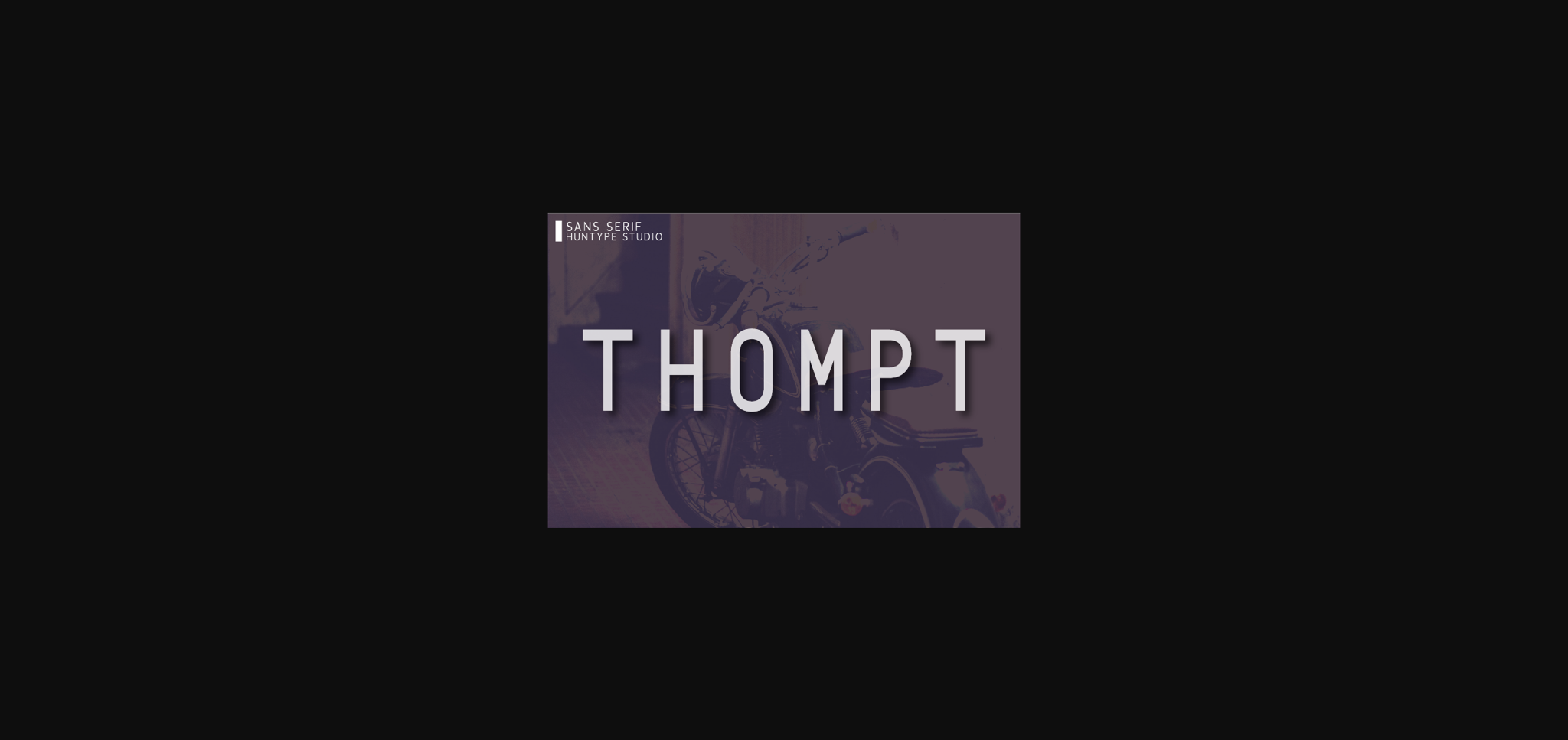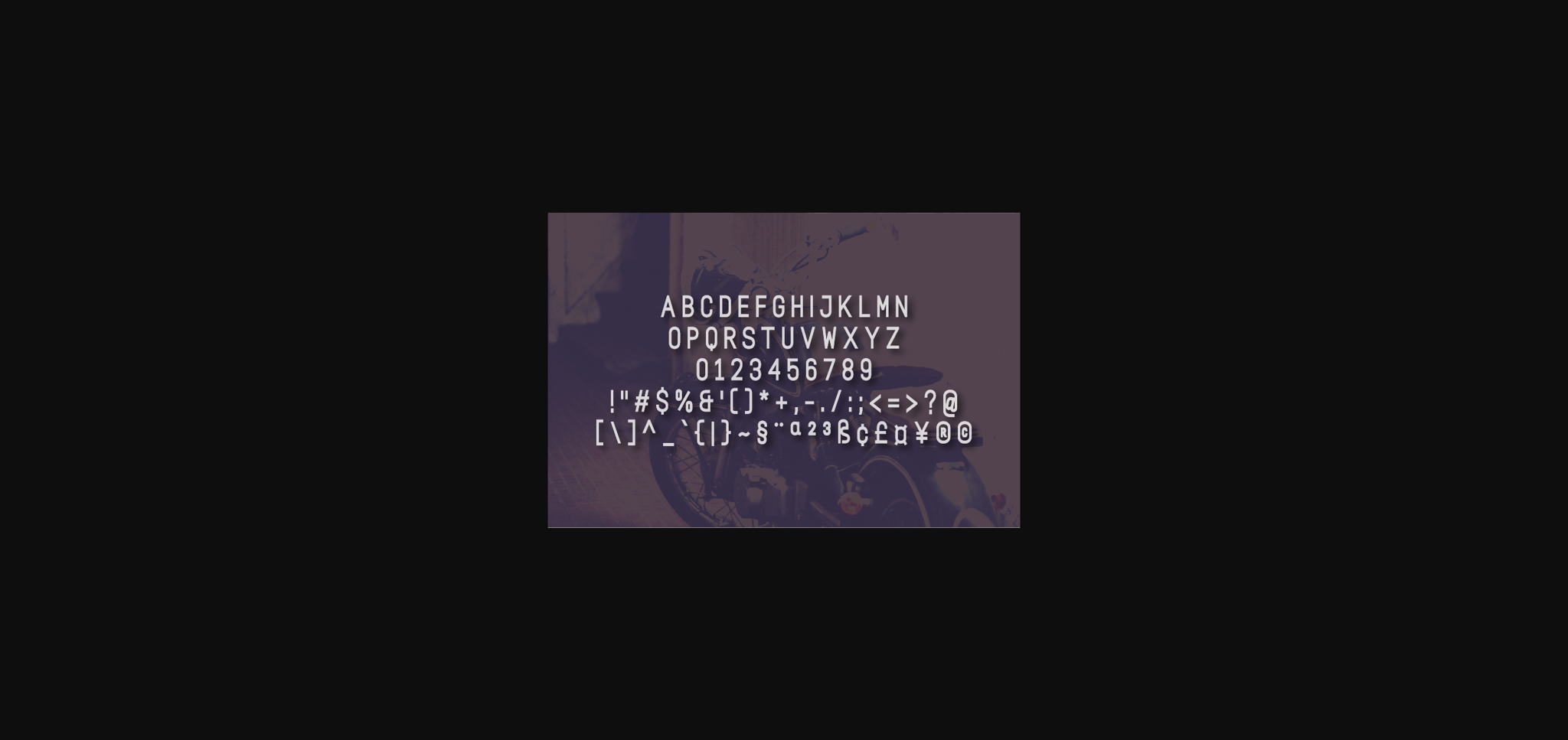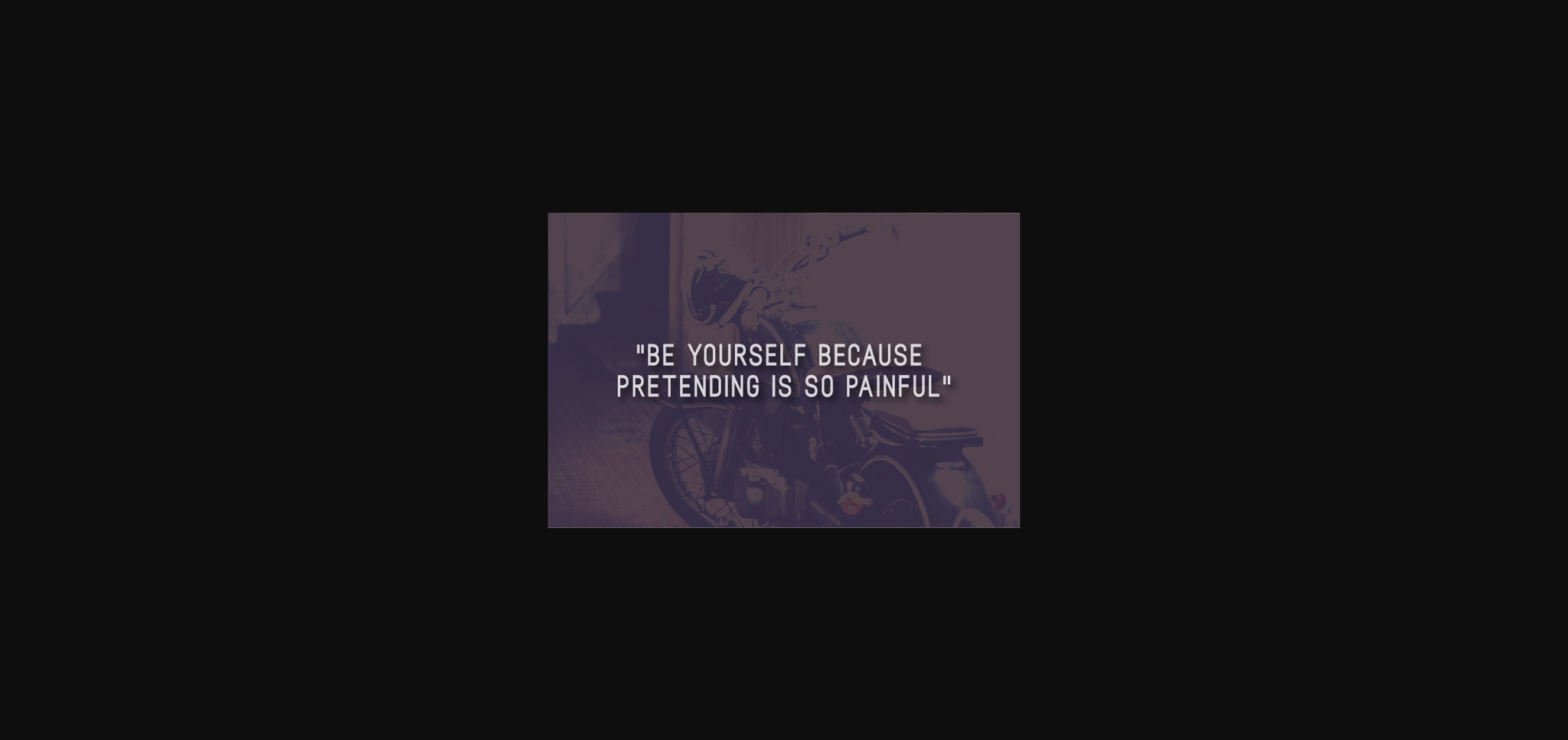
HomeSans Serif FontsThompt Font Sans Serif Fonts Thompt Font FacebookXPinterestWhatsApp 1 of 5 ... Thompt Font Poster 2... Thompt Font Poster 3... Thompt Font Poster 4... Thompt Font Poster 5... About Thompt Font Thompt is a modern and bold sans serif font. Add this font to your favorite creative ideas and notice how it makes them come alive! DOWNLOAD NOW People also explored Station Kids Font Jacklin Font Antique Font Butterlove Font Gabryla Font Diantha Script Font Deluxe Font Colonnade Font Wedding Vacation Font 283 0 TagsThomptThompt Font Previous articleFounten FontNext articleModeline Font LEAVE A REPLY Cancel reply Comment: Please enter your comment! Name:* Please enter your name here Email:* You have entered an incorrect email address! Please enter your email address here Website: Save my name, email, and website in this browser for the next time I comment. Personal Use Free BD Fluke Personal Use Free Read more about this font Unispace Personal Use Free Read more about this font Mandara Personal Use Free Read more about this font Written by Hand Personal Use Free Read more about this font BLOG Best Fonts for YouTube Videos: Make Your Thumbnails Stand Out Best Fonts for YouTube Videos: Make Your Thumbnails Stand Out Choosing the right font can make a massive difference in how your YouTube videos perform.... Best Fonts for T-Shirt Design – Top 2025 Picks The 10 Best Handwriting Fonts to Add Personality to Your Designs Modern Sans-Serif Fonts That Brands Love in 2025